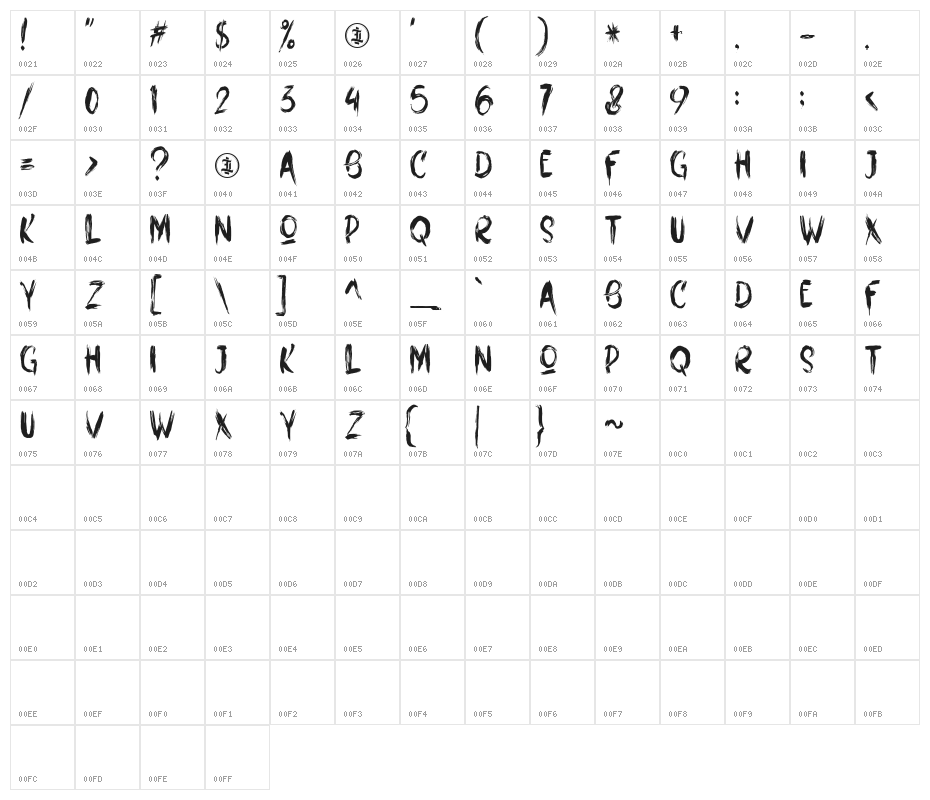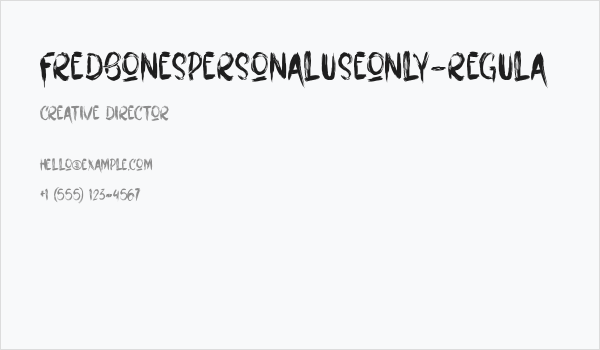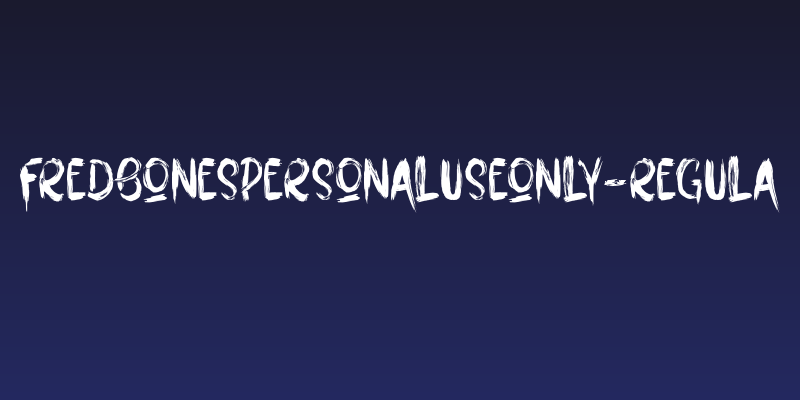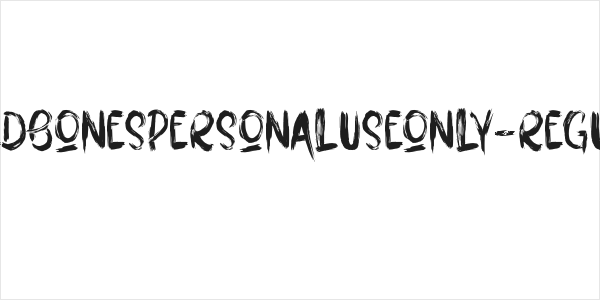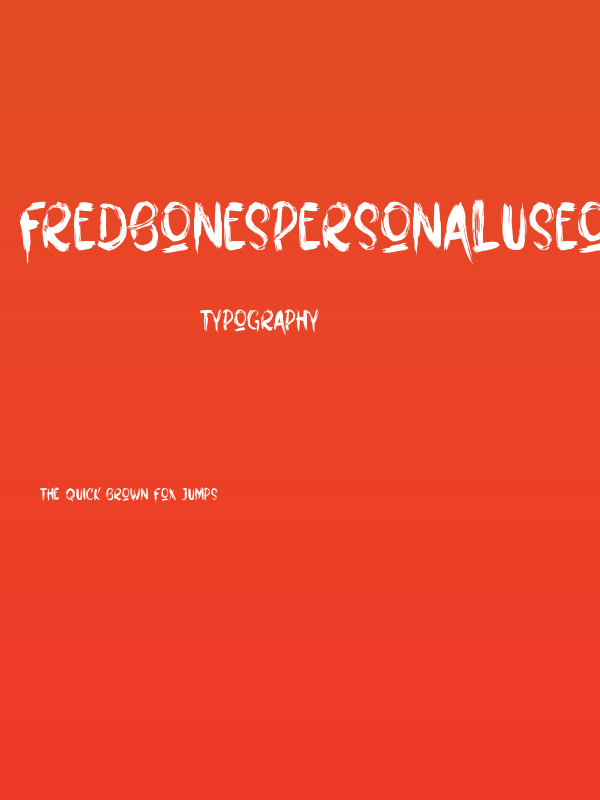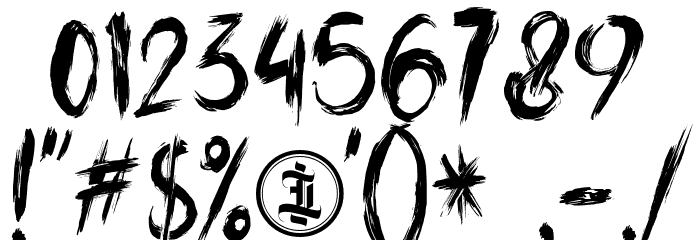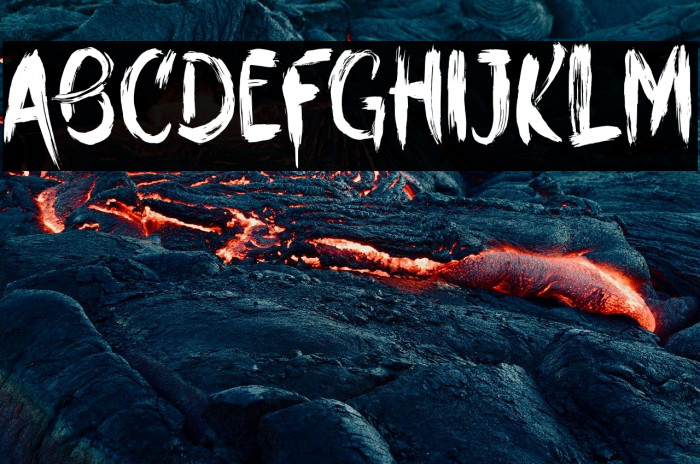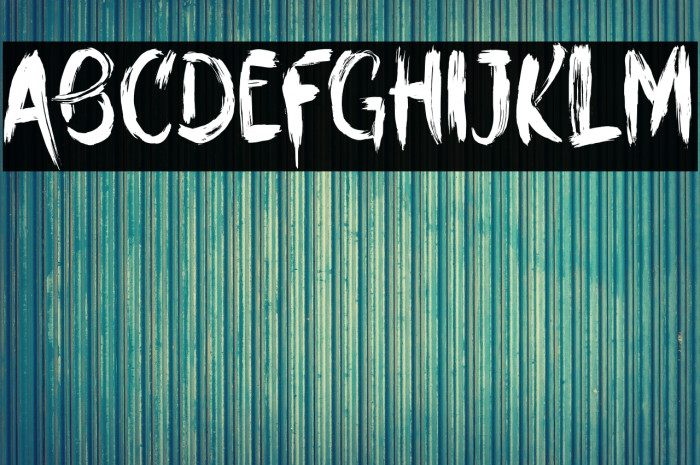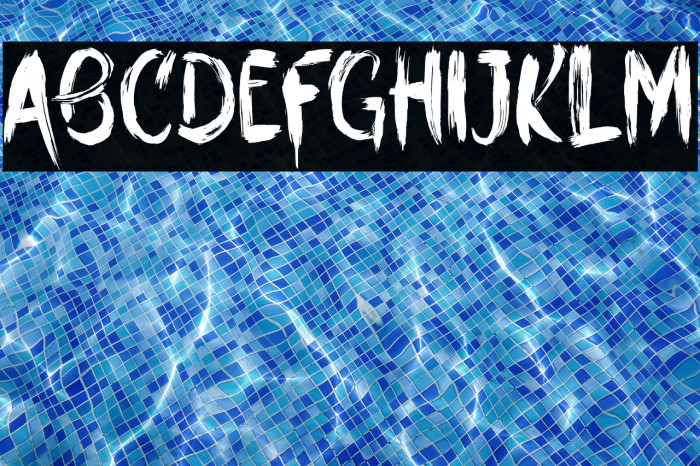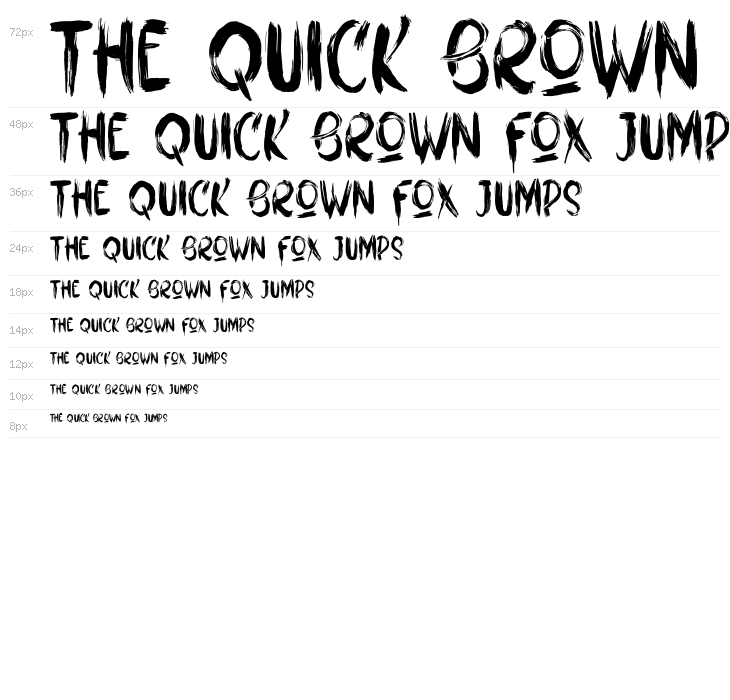
FredbonesPersonaluseOnly-Regula Font
FredbonesPersonaluseOnly-Regula Description
This font features a bold, expressive style with brush-like strokes that give it a dynamic and energetic appearance. The characters are crafted with irregular edges and varying thickness, creating a sense of movement and artistic flair. The uppercase and lowercase letters maintain a consistent style, with each character exhibiting unique, hand-drawn qualities. The numbers and special characters follow the same aesthetic, ensuring a cohesive look across all glyphs. This font's distinctive appearance makes it ideal for projects that require a strong visual impact.